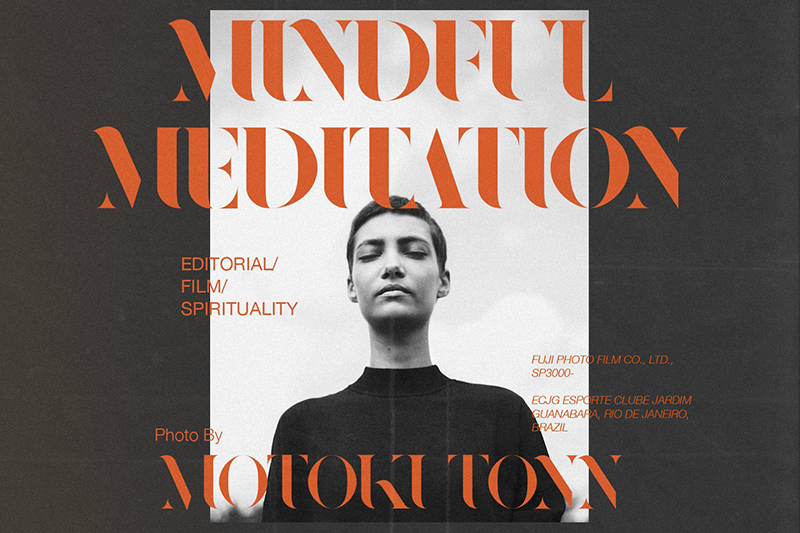
Preview and download Redland Font. Created by Wahyu Rahmawan in Fancy Various styles with 100% Free license.
Download Redland, a timeless serif font perfect for creating a strong brand or logo. Its elegant curves are sure to catch your eye while maintaining a sophisticated personality. With multiple weights, stylistic ligatures, and alternative fonts, Redland is a versatile option for any design project. Best of all, it�s completely free to download. Don�t miss out on this opportunity to elevate your design game with Redland. Want all the features? Get the full version now! https://go.factory738.com/KTV3qW |